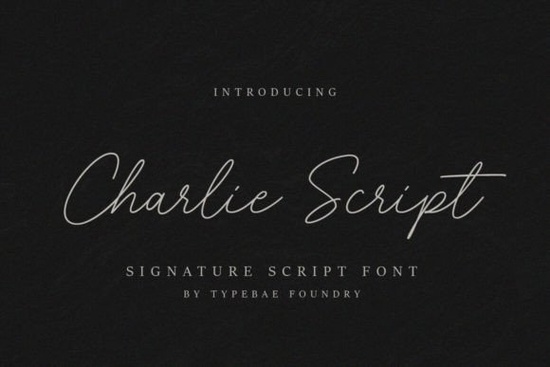
Charlie Script Font is a relaxed, natural-looking handwritten typeface that feels like a real signature smooth, confident, and quietly elegant. It’s not overly ornate or fussy, which makes it easy to use across many kinds of projects without looking out of place. Whether you're designing wedding stationery, printable wall art, custom t-shirts, or social media graphics, this font adds warmth and personality without demanding attention. Its gentle flow and consistent rhythm make it especially useful for crafters and small businesses who want their text to feel personal not polished by a committee.
What makes Charlie Script Font different from other script fonts?
Most script fonts fall into two camps: either ultra-formal with dramatic swashes and tight spacing, or super-casual with uneven baselines and sketchy textures. Charlie Script sits comfortably in the middle. It has subtle variation in stroke weight, soft entry and exit strokes, and just enough bounce to feel human but not so much that it becomes hard to read at smaller sizes. Because it’s PUA encoded, all alternate characters, ligatures, and stylistic sets appear reliably in design apps like Canva, Adobe Illustrator, and Cricut Design Space no workarounds needed.
You’ll notice how well it pairs with clean sans-serifs for contrast, or even stands alone in minimalist layouts. Unlike some script fonts that need heavy kerning or manual adjustments, Charlie Script works straight out of the box. That’s helpful if you’re batch-creating POD products or prepping files for print shops.
Where does Charlie Script Font fit best?
It shines in contexts where authenticity matters more than formality. Think handmade greeting cards, boutique packaging labels, Instagram quote posts, or personalized baby onesies. It also works beautifully alongside other popular Creative Fabrica script fonts like Hello Honey Font, which leans sweeter and bouncier, or Gloomy Unseen Font, which offers moody contrast for gothic or vintage themes. For weddings, it fits right in with our curated collection of wedding font script fonts, especially when paired with delicate floral elements or soft watercolor backgrounds.
Summer-themed designs think beach towels, picnic menus, or vacation journals also benefit from its light, breezy energy. You’ll find similar ease in our summer beach font script fonts bundle, but Charlie Script stands out for its versatility across seasons and styles. And while it’s not a “straight” script (meaning it doesn’t sit rigidly on the baseline), it’s more controlled than wild brush scripts making it a good bridge if you usually reach for something like the straight font script fonts for clarity and consistency.
How to get the most out of Charlie Script Font
- Use OpenType features enable ligatures and stylistic alternates in your design app to unlock smoother connections between letters (like “fi”, “fl”, or “ct”).
- Pair thoughtfully try it with a neutral sans-serif like Montserrat or Lato for headings + body copy combos.
- Test readability early at sizes under 18pt, avoid tight letter spacing; let the font breathe, especially on fabric or printed materials.
If you’ve used script fonts before and found them tricky to manage either too stiff, too busy, or inconsistent across devices Charlie Script Font may feel like a quiet relief. It doesn’t try to do everything, and that’s part of what makes it reliable. You won’t need to spend time fixing broken glyphs or hunting down missing punctuation. Everything works as expected, and the result looks like something you took time to write by hand even when you’re producing dozens of variations at once.
For designers who value both aesthetics and efficiency, or crafters who want beautiful typography without steep learning curves, this is one of those fonts you’ll come back to again and again not because it’s flashy, but because it simply gets the job done well.